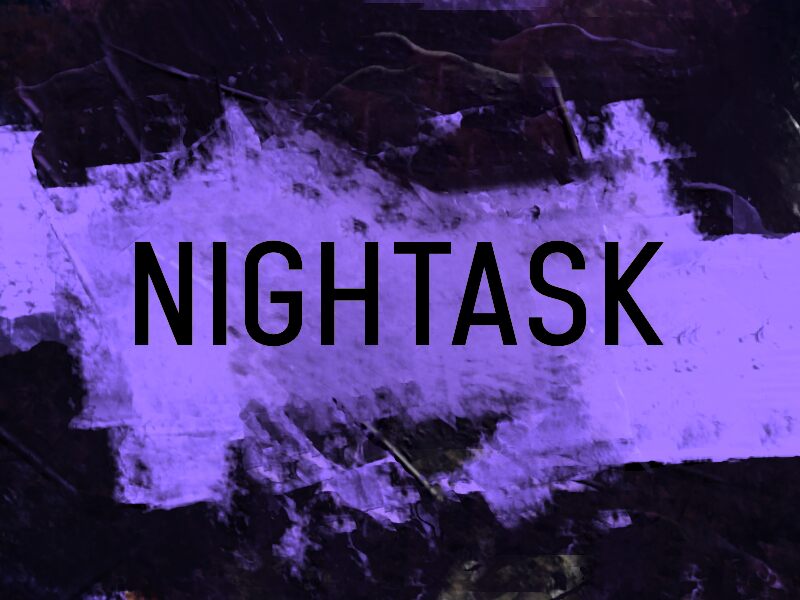
n Nightask font by wep is the modern sans serif design your visual projects are lacking. This minimalistic free font uses a low-contrast letter structure to suggest ideas of cleanliness, professionalism, and sleekness. A contemporary yet classic approach to each character is obvious; giving an impression of elegance and high taste.
With these qualities, this font is ideal for branding, identity design, packaging, websites, apps, magazines, body texts, poster design, and advertisements. Display n Nightask on logos, social media artworks, business cards, brochures, and other print designs.
Nightask is a stylish and modern font that captures the essence of elegance and creativity. This free font is perfect for various design projects, from branding to invitations, and everything in between. With its unique character shapes and versatility, Nightask stands out and adds a sophisticated touch to your work.